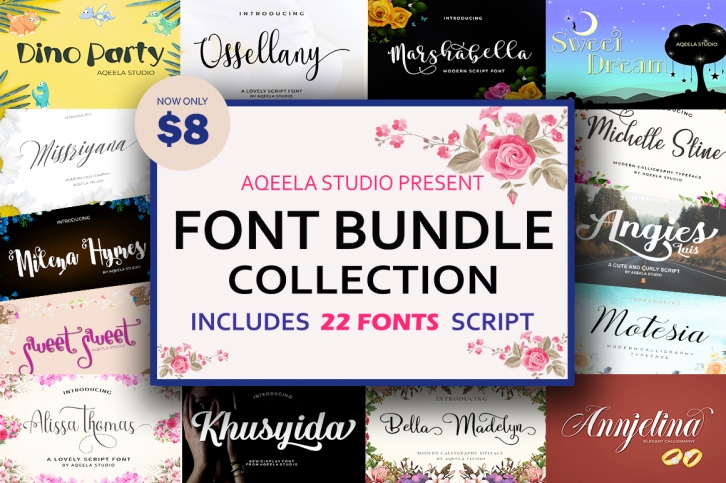
BUNDLE COLLECTION is a gorgeous font that was realeased on November 5, 2018. The font can be used in many style contexts and design environments. Perfect for invitations, magazines, websites, logos, and more! It was designed by Aqeela Studio and the file size is 1.3 MB. Thanks for checking out this font!